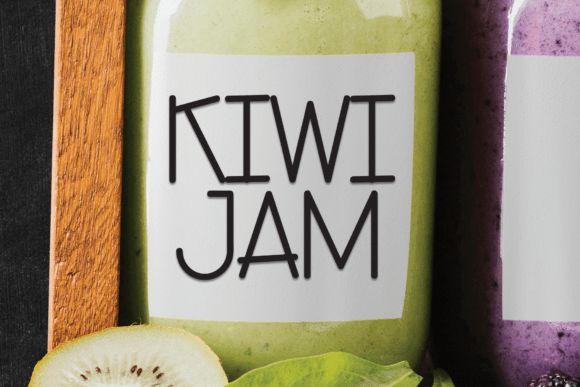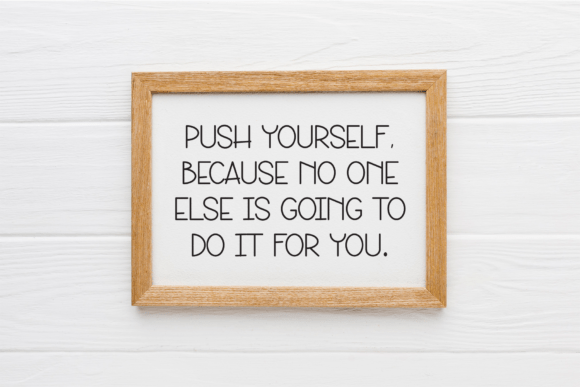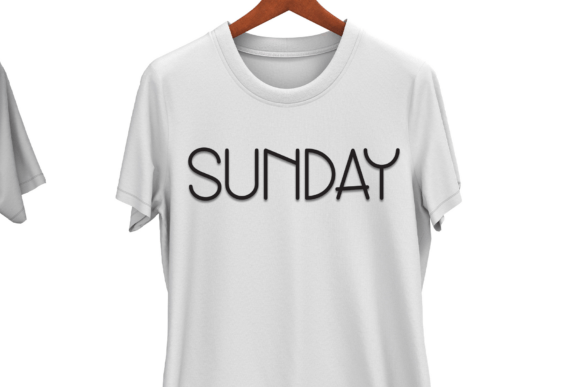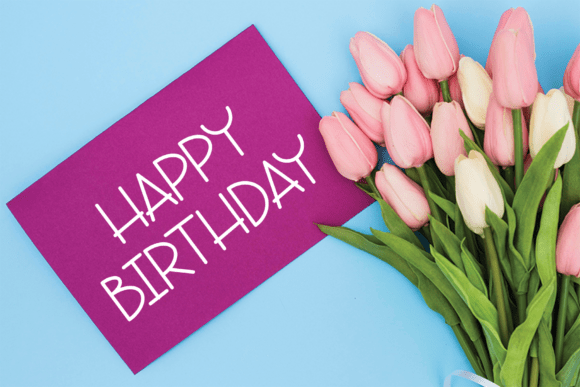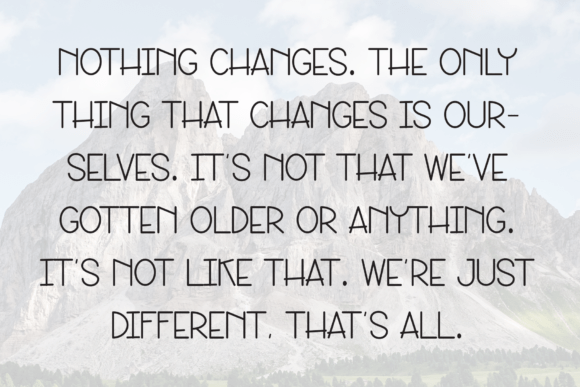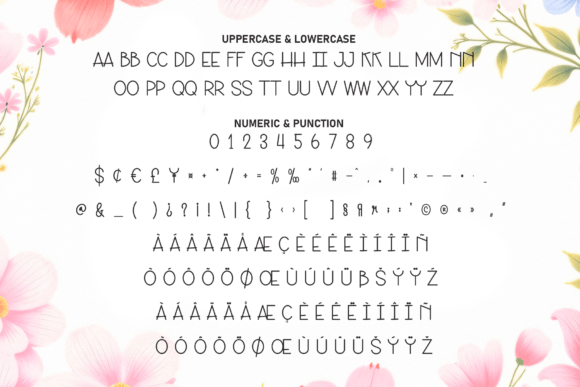
The Perfect Bloom: Discovering the Charm of Flowers Font
I’ll never forget the time I was working on a branding project for a local florist. I had spent hours pouring over design concepts, but something was missing – the perfect font. That’s when I stumbled upon Flowers Font, a casual and neat display font that instantly captured the essence of the brand. With its clean lines, balanced letterforms, and subtle rounded edges, it added a warm and inviting touch to the design. In this article, I’ll share my experience with Flowers Font, its features, and how to make the most of it in your designs.
A First Impression: What I Love About Flowers Font
Flowers Font is a gem for designers, crafters, and creative hobbyists. Here’s what makes it special:
- ✨ Clean and modern design: Flowers Font boasts a crisp structure that makes it perfect for branding, headlines, packaging, and digital content.
- ✅ Friendly and approachable vibe: The subtle rounded edges give it a warm and inviting feel, making it ideal for designs that require a personal touch.
- 💡 Versatile style: This font delivers clarity and charm in equal measure, making it suitable for a wide range of design projects.
A Few Quirks to Consider
While Flowers Font is an excellent choice, there are a few things to keep in mind:
- 🤔 Limited use in body text: Due to its display nature, Flowers Font might not be the best choice for lengthy body text. It’s best used for headlines, titles, or short paragraphs.
- ⚠️ Glyph limitations: While Flowers Font has a range of glyphs, it might not have every special character or symbol you need. Be sure to check the font’s capabilities before using it in a project.
Flowers Font comes with a range of OpenType features and glyphs that can enhance your designs. Here are a few tips:
- Stylistic alternates: Experiment with different stylistic alternates to add visual interest to your text.
- Ligatures: Use ligatures to create a more fluid and natural look in your text.
The Story Behind Flowers Font
Flowers Font was designed with the goal of creating a modern, yet approachable font that captures the essence of handwritten typography. The designer aimed to create a font that is both clean and elegant, making it suitable for a wide range of design projects. While the actual designer’s story might be unknown, it’s clear that Flowers Font has become a popular choice among designers and crafters.
| Font Name | Flowers Font |
| Author | Misterletter.co |
| What is Flowers Font best used for? | Flowers Font is ideal for branding, headlines, packaging, and digital content where a friendly and approachable vibe is desired. |
| Can I use Flowers Font for body text? | While possible, Flowers Font is best used for short paragraphs or titles due to its display nature. |